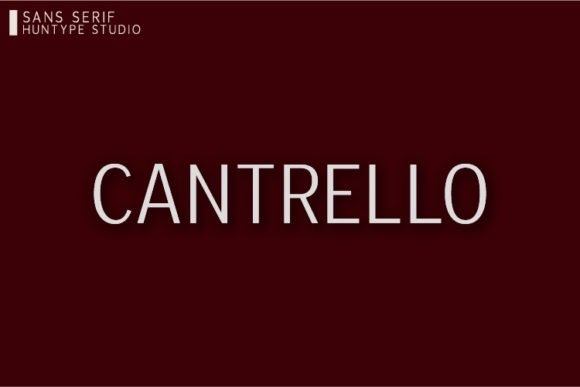
Introduction to Cantrello Font
Cantrello is a smooth sans serif font.
It will complement any design need perfectly with its perfectly balanced mix of the smooth and sharp .